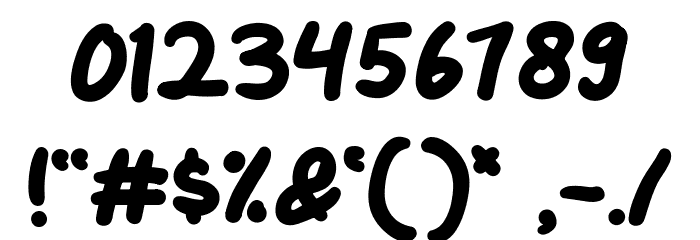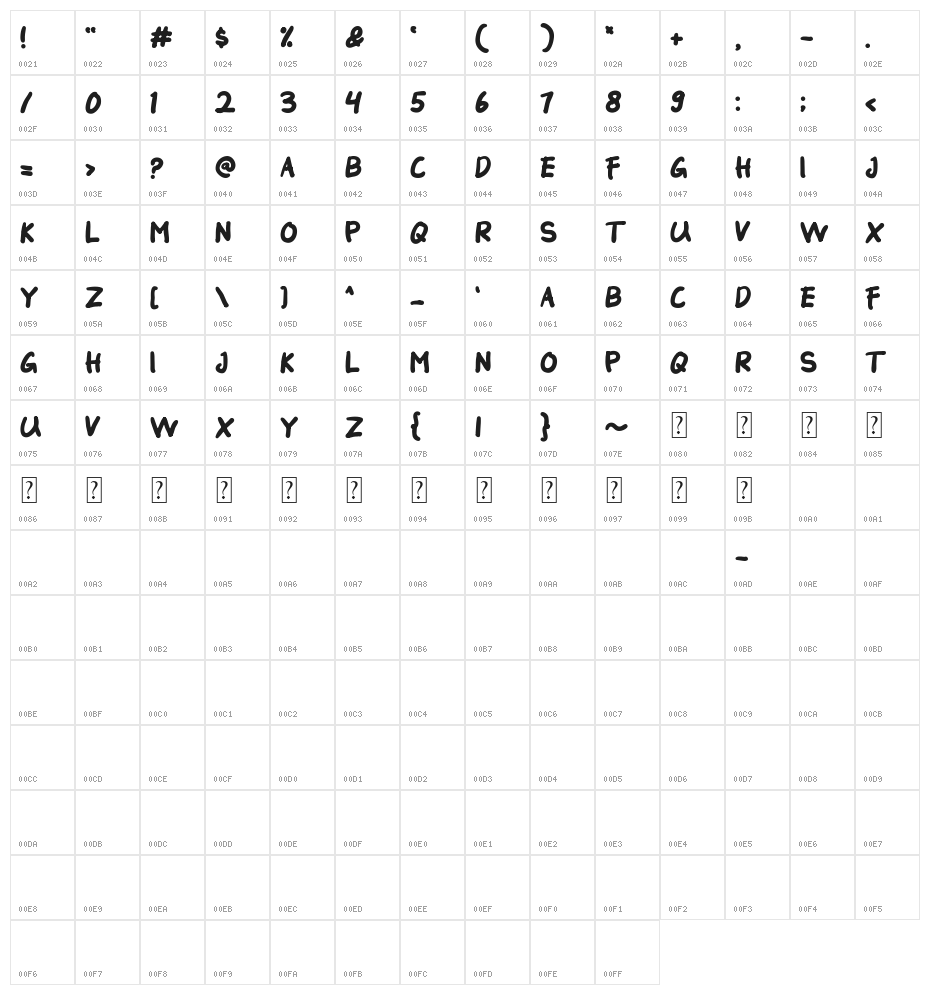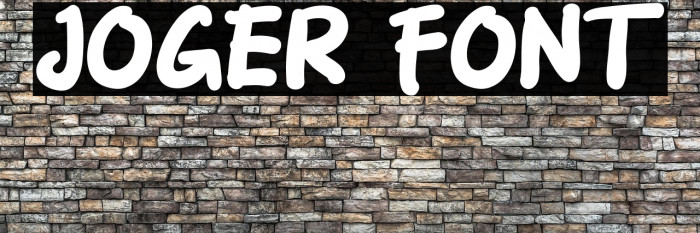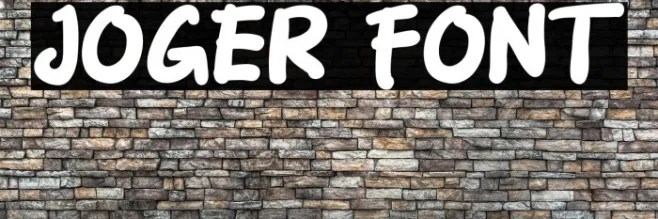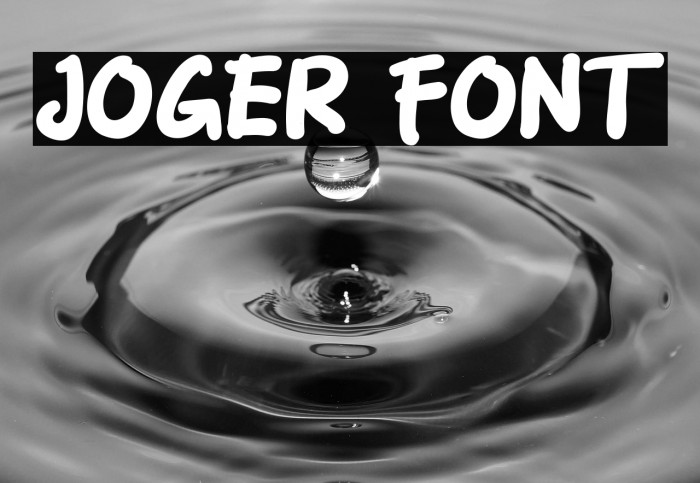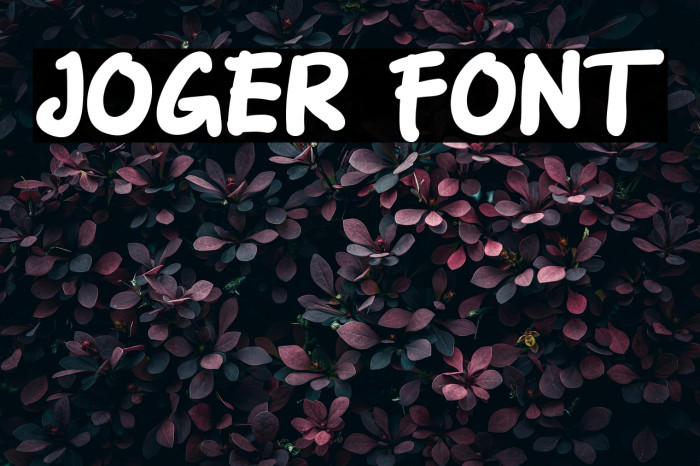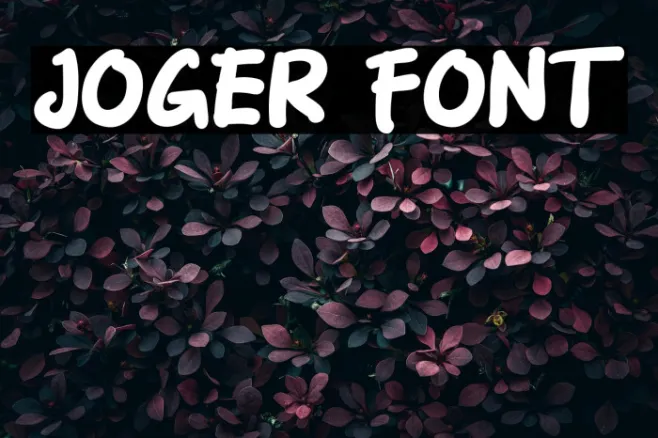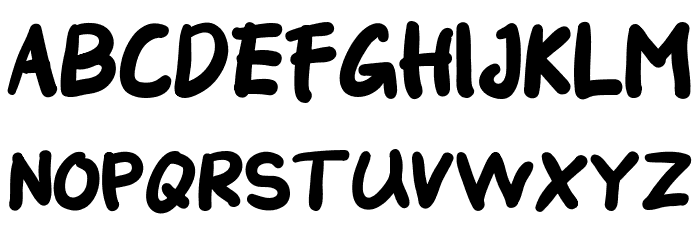
Joger Font
Joger Description
This font features a bold and playful handwritten style, characterized by its thick strokes and rounded edges. The letters are slightly irregular, giving it a casual and friendly appearance. The uppercase and lowercase letters maintain a consistent style, enhancing readability while retaining a unique charm. The numbers and special characters are designed to match the overall aesthetic, making it versatile for various applications. Its boldness ensures that it stands out, making it suitable for attention-grabbing designs.
| Proposed Projects | Ideal for children's books, playful branding, greeting cards, and informal posters. |